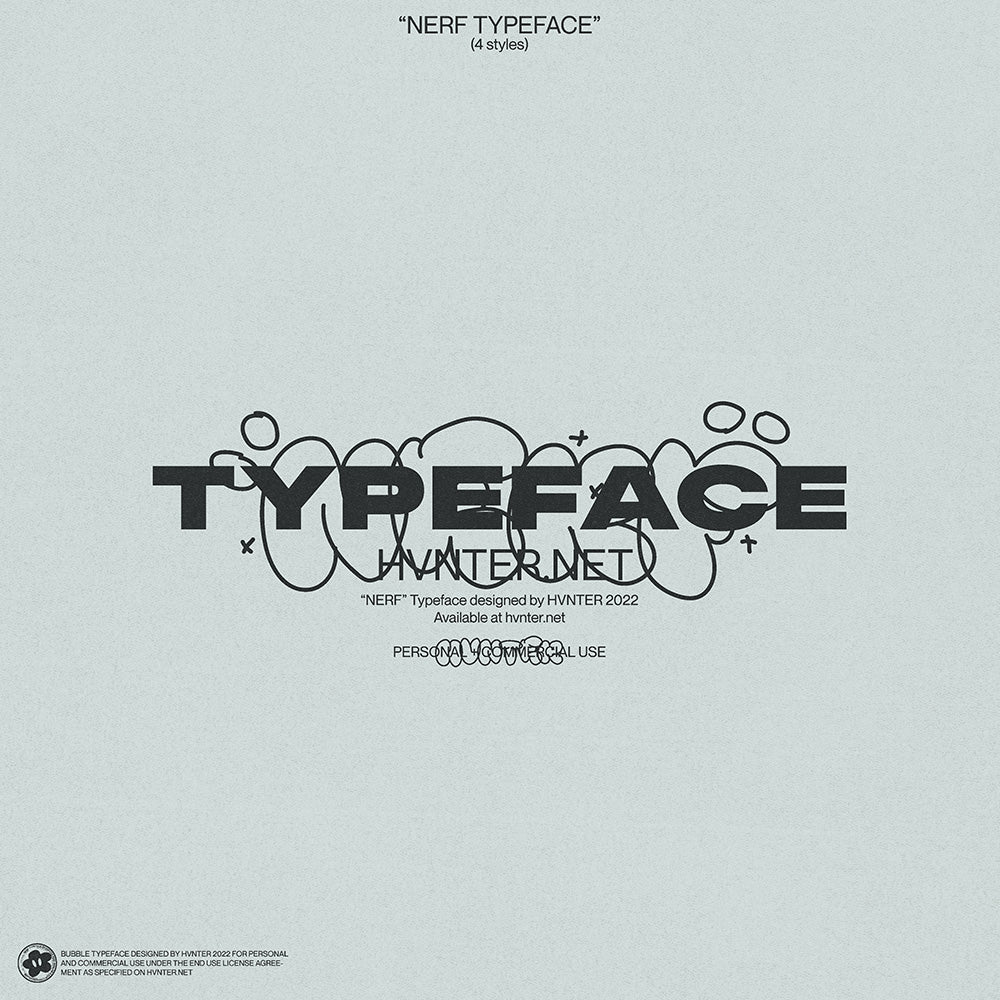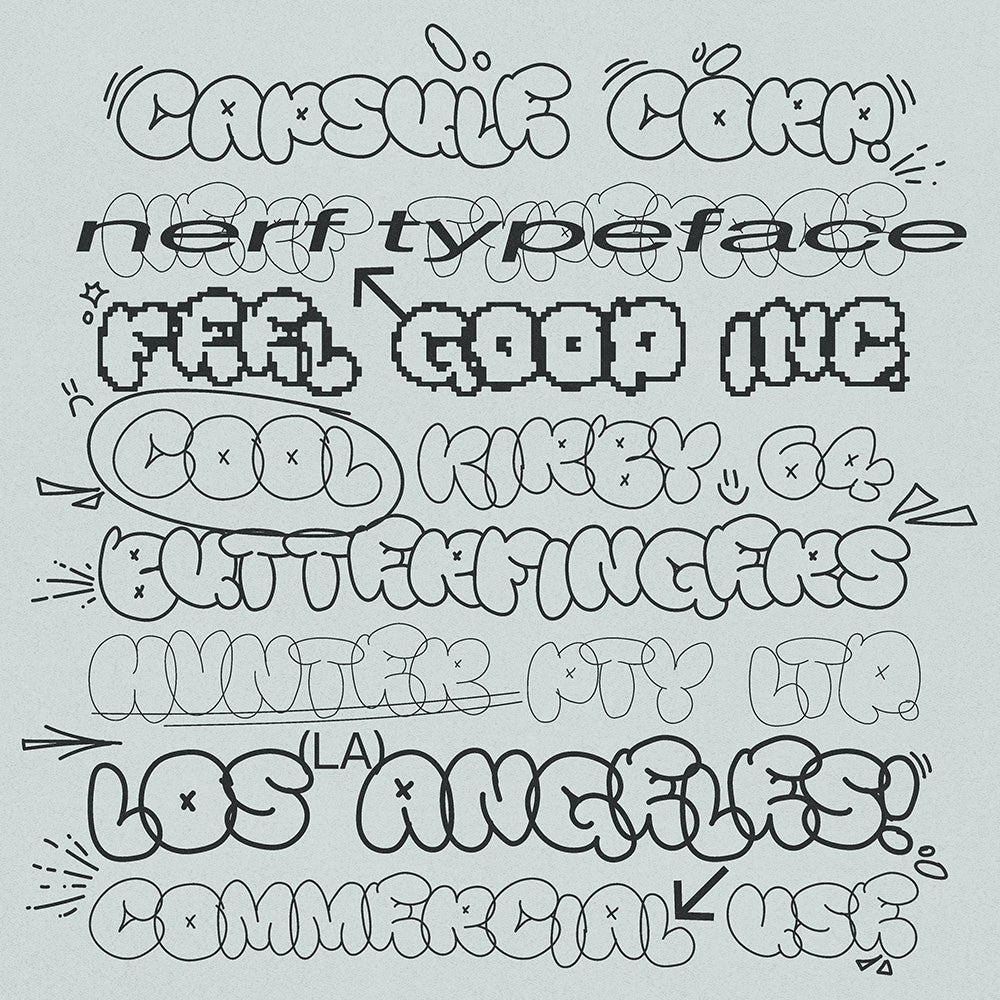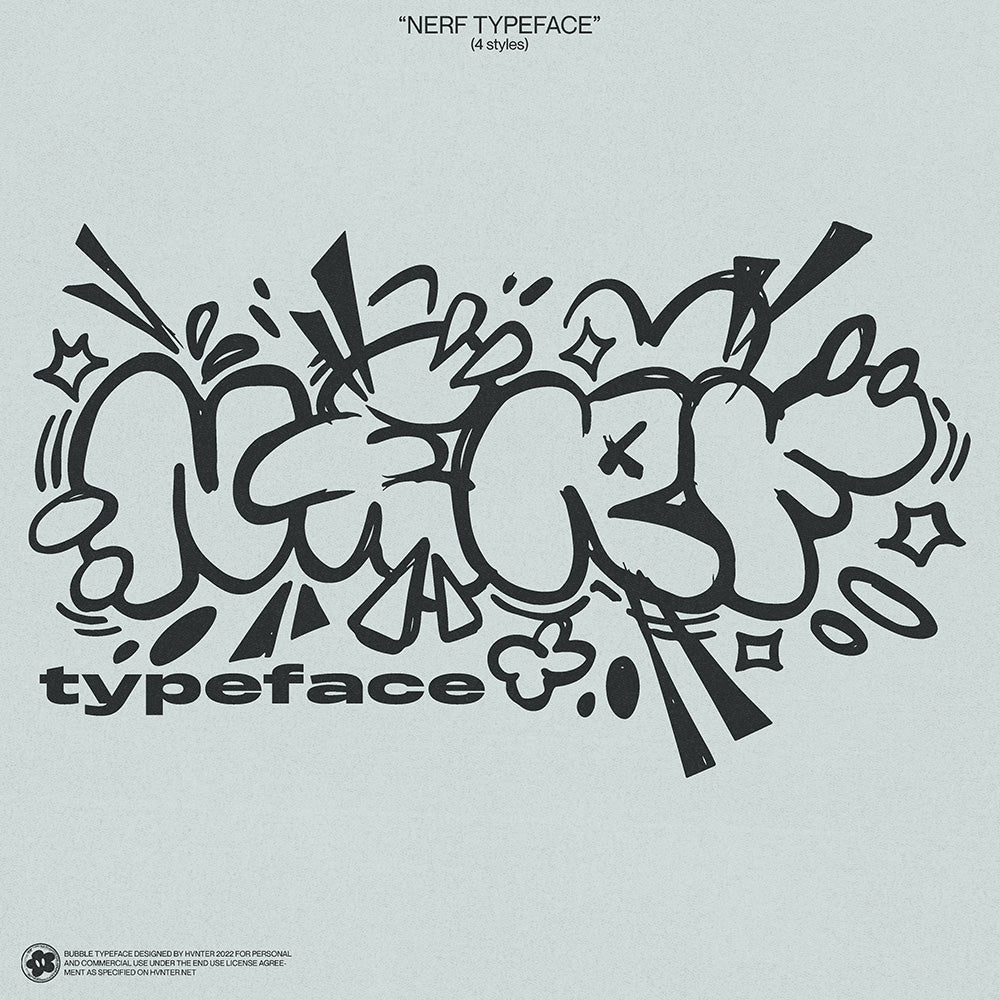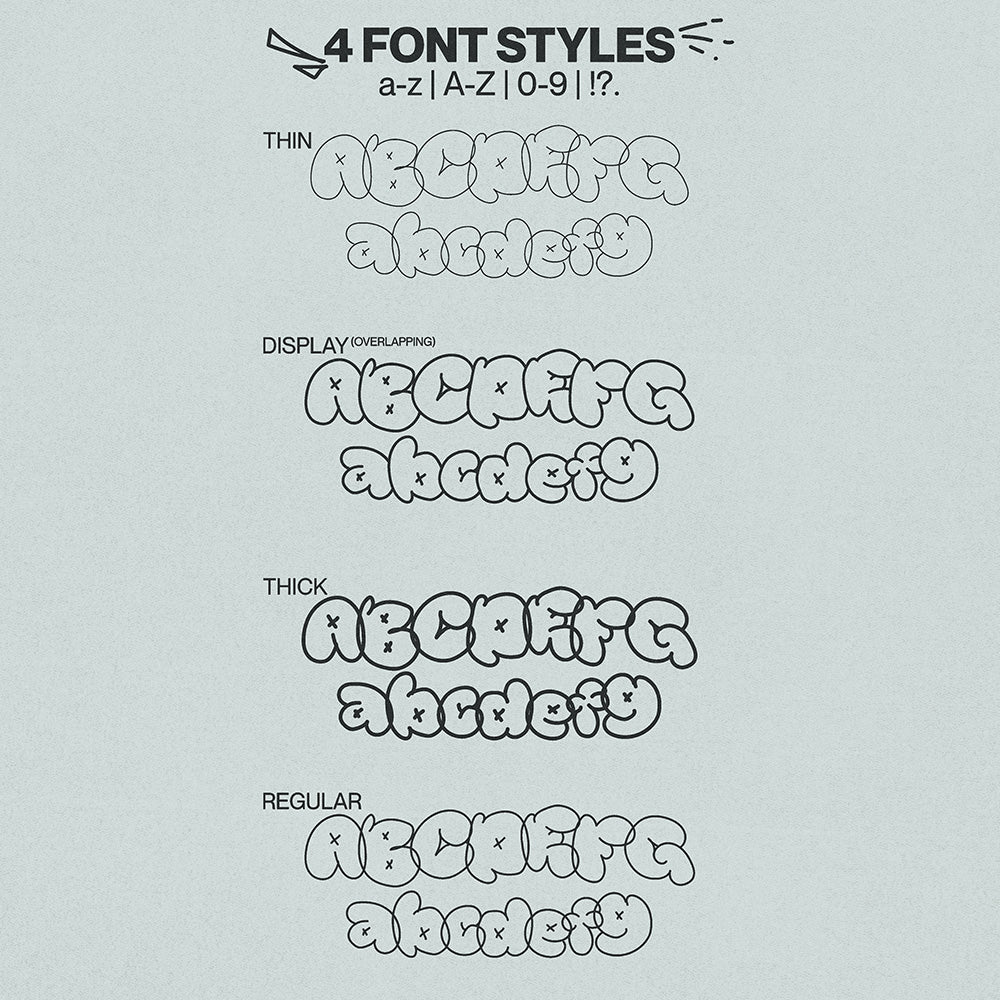
NERF Typeface
Bubble x Graffiti typeface... Includes A-Z, a-z, 0-9, !?. (4 styles - shown in images) .otf font file
The NERF Typeface is a bubble x graffiti style font that includes characters A-Z, a-z, 0-9, and punctuation marks !?. It comes in four distinct styles as shown in images and is provided as an .otf font file.